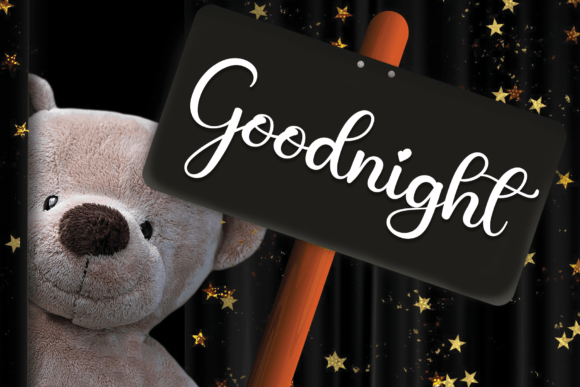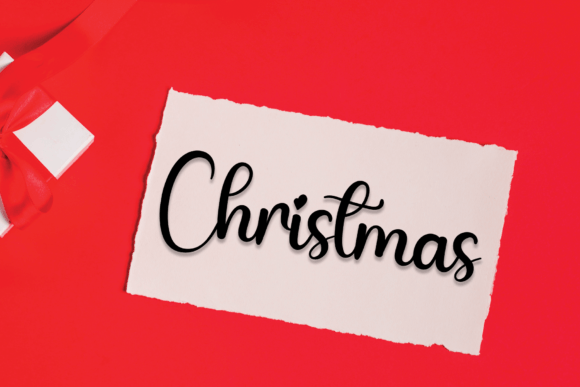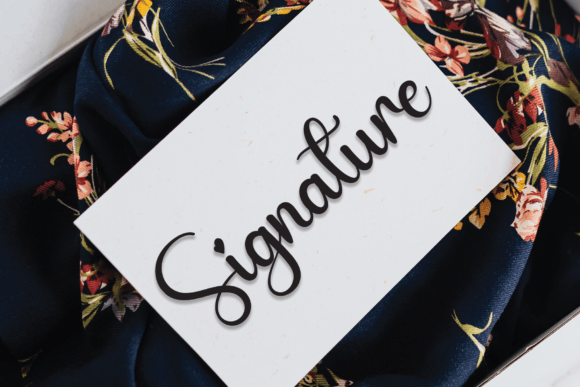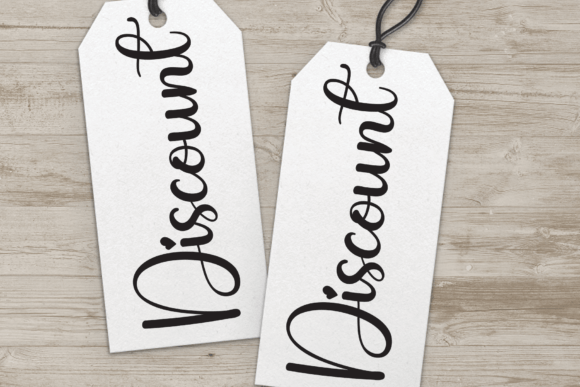
Hello Handmade Font
The Hello Handmade font features a beautifully crafted handwritten style, ideal for a wide variety of creative projects. Its latest style is perfect for wall displays, wedding invitations, social media post logos, advertisements, product packaging, product design, labels, photography, watermarks, invitations, stationery, and much more.
With smooth, flowing strokes, the Hello Handmade font adds a warm and authentic handwritten touch. It strikes a balance between elegance and readability, making it suitable for both large headlines and smaller text details. This ensures that your designs look professional while retaining a natural, handcrafted feel.
Whether you are designing charming wedding invitations or crafting modern branding materials, the Hello Handmade font offers versatility and sophistication. It enhances logos, packaging, and promotional designs with a unique handwritten flair that stands out.
In conclusion, the Hello Handmadefont is a beautiful and versatile handwritten script perfect for wedding invitations, branding, packaging, social media, and countless other creative applications. Download it today and bring a fresh, handcrafted touch to your designs.